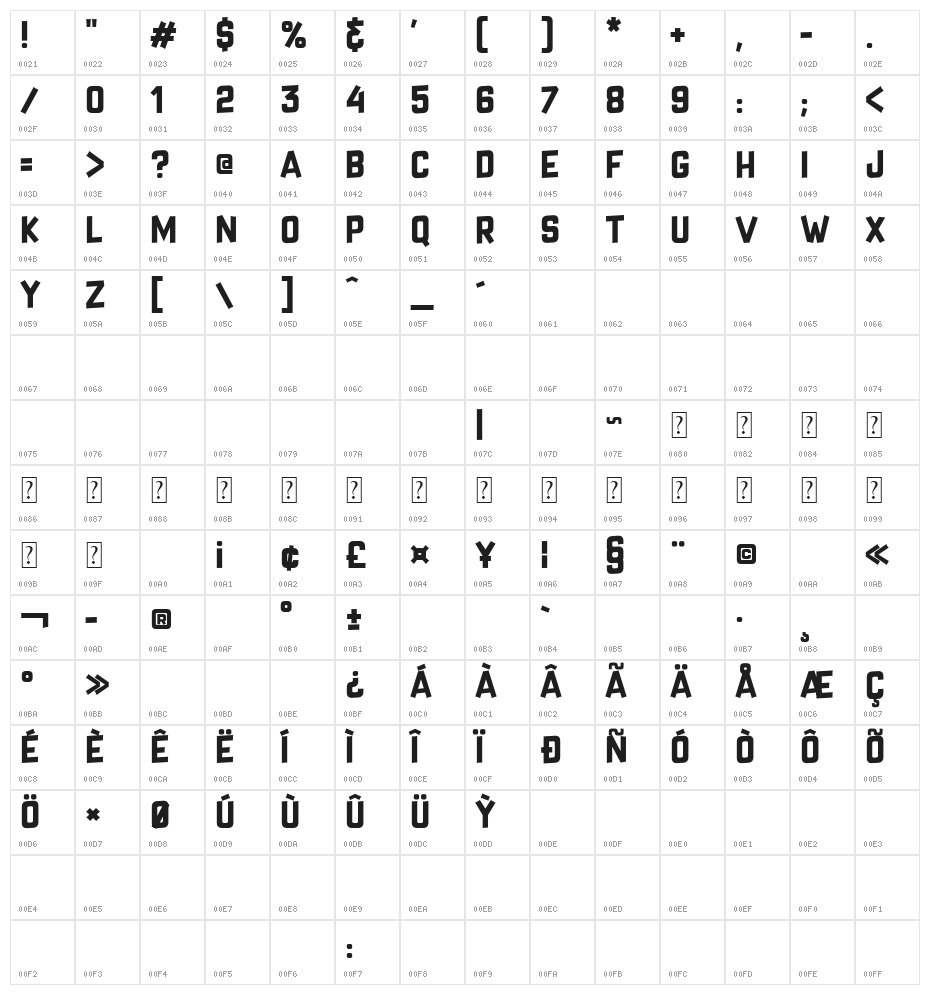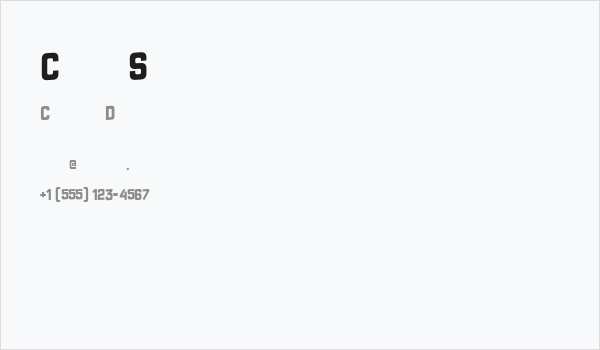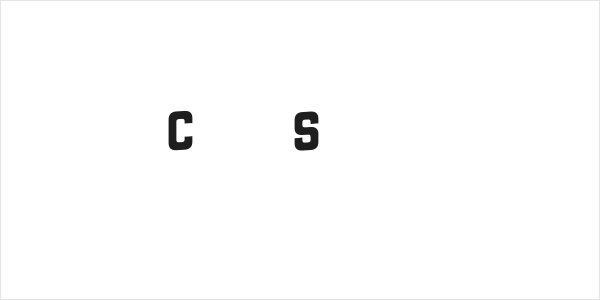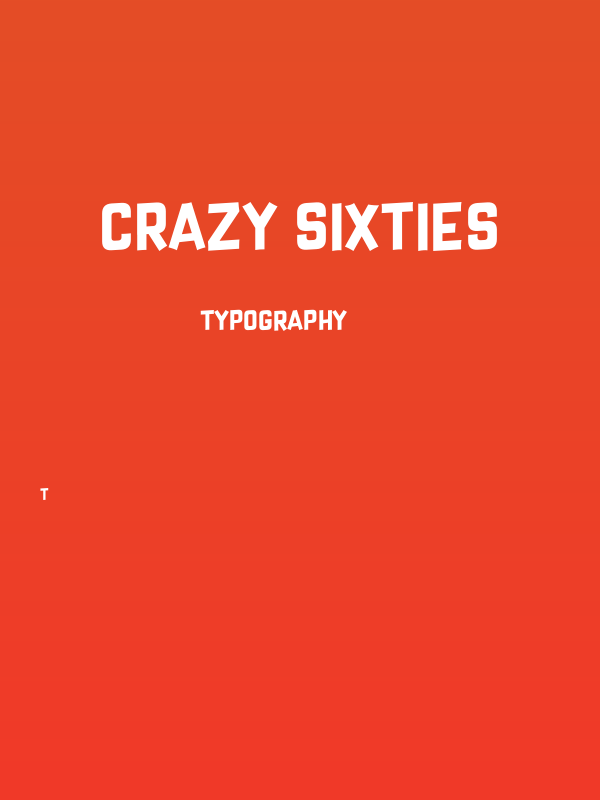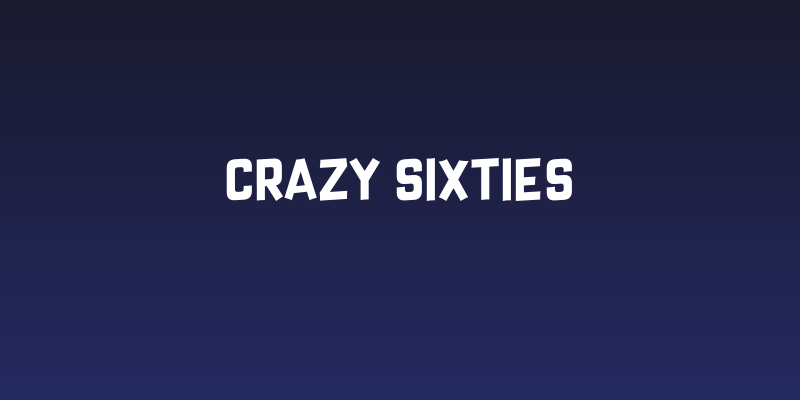
Crazy Sixties Font
Crazy Sixties Description
This font features a bold and geometric design with a strong presence. The uppercase letters are blocky and angular, giving a sense of stability and strength. The numbers and special characters maintain this boldness, ensuring consistency across all glyphs. The font's style is reminiscent of retro and vintage aesthetics, with a modern twist that makes it suitable for contemporary designs. Its clean lines and solid structure make it highly legible, even at smaller sizes, while its unique character adds a distinctive flair to any project.
Overall StyleRetro, Modern
Proposed ProjectsIdeal for posters, branding, headlines, and any project requiring a strong, vintage-inspired look.